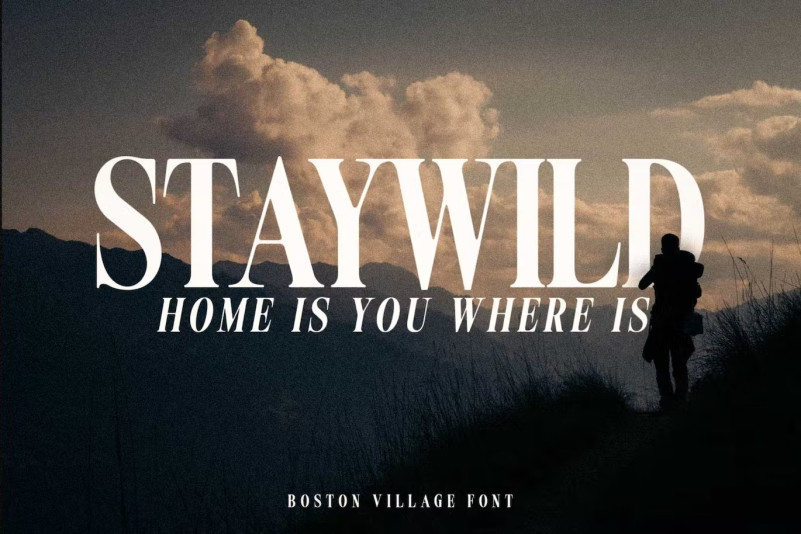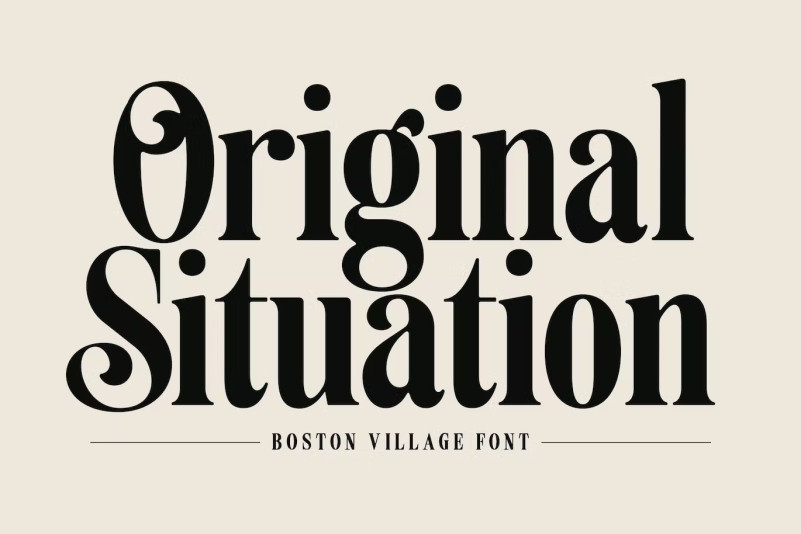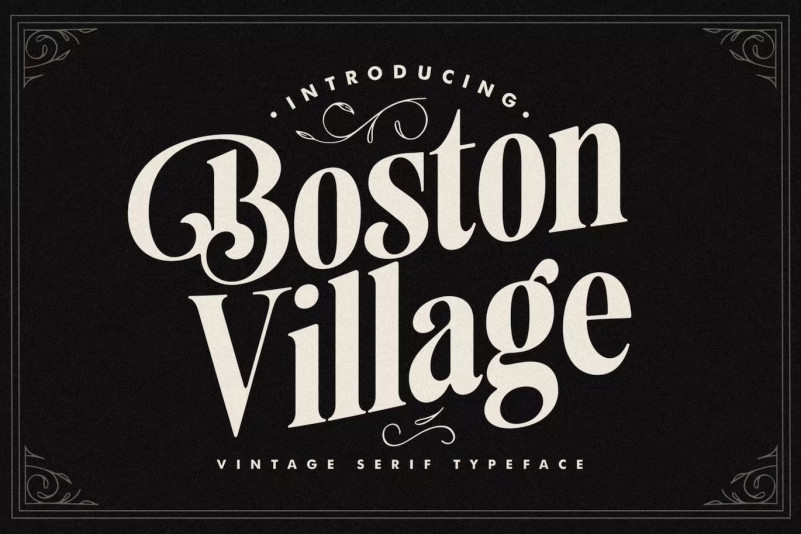
Boston Village Font
Boston Village Serif Font is a minimalist, elegant and modern vintage font with beautiful stylistic and multilingual support. It’s a very versatile font that works great in both large and small sizes. Perfect for branding projects, Logo design, apparel brands, product packaging, magazine headers, or simply as a stylish text overlay to any background image.